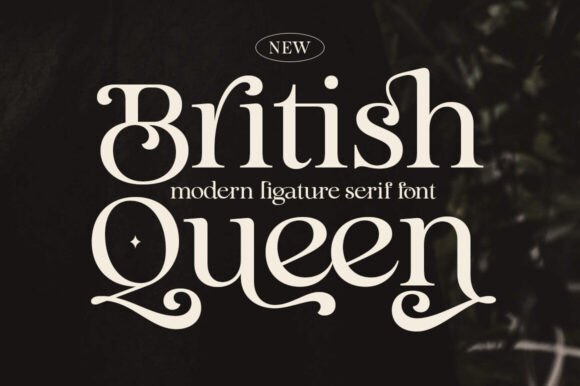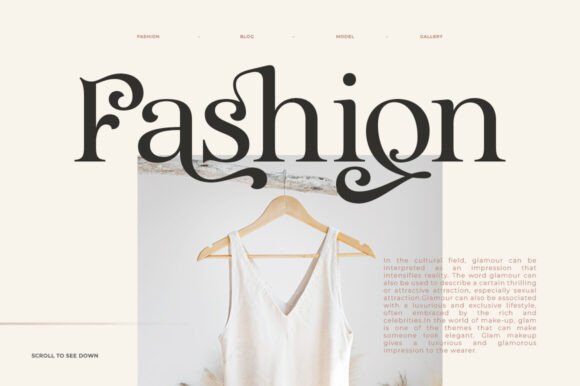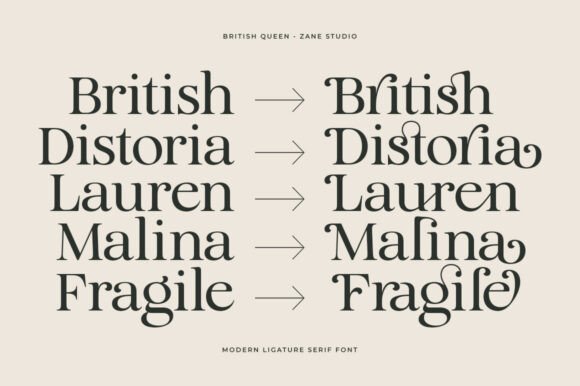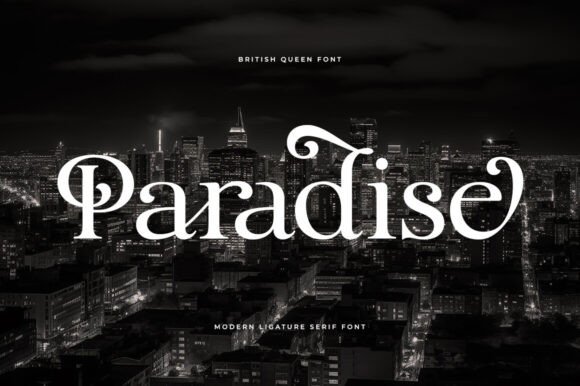
British Queen Font
About the British Queen Font
We are excited to introduce British Queen Font, a must-have typeface for any serious designer. British Queen Classic-Modern Ligature Font!
British Queen is a classic, elegant, and unique style font that uses ligatures to seamlessly connect letters. Perfect for branding, logos, invitations, masterheads and more. Hermione has 75 ligatures, 100 alternates for upper and lower case letters as well as numbers and punctuation marks, making it very versatile.
Its elegant, classic style makes British Queen ideal for headlines, logos, and short-form text in branding materials, invitations, and high-end packaging. The ligatures add a touch of sophistication, but the extensive alternates provide versatility. However, its refined nature makes it less suitable for body text or UI elements requiring high readability in long blocks.
For a balanced pairing, consider a clean sans-serif like Montserrat for body text, or a geometric sans-serif like Futura for a modern contrast. A script font like Great Vibes could be used for secondary text, enhancing the overall luxurious feel.
British Queen exudes a sophisticated, refined personality, best suited to brands projecting luxury, tradition, or high-end quality. Avoid using it where a more playful or informal tone is required.
British Queen Font Usage Examples
British Queen Font Example